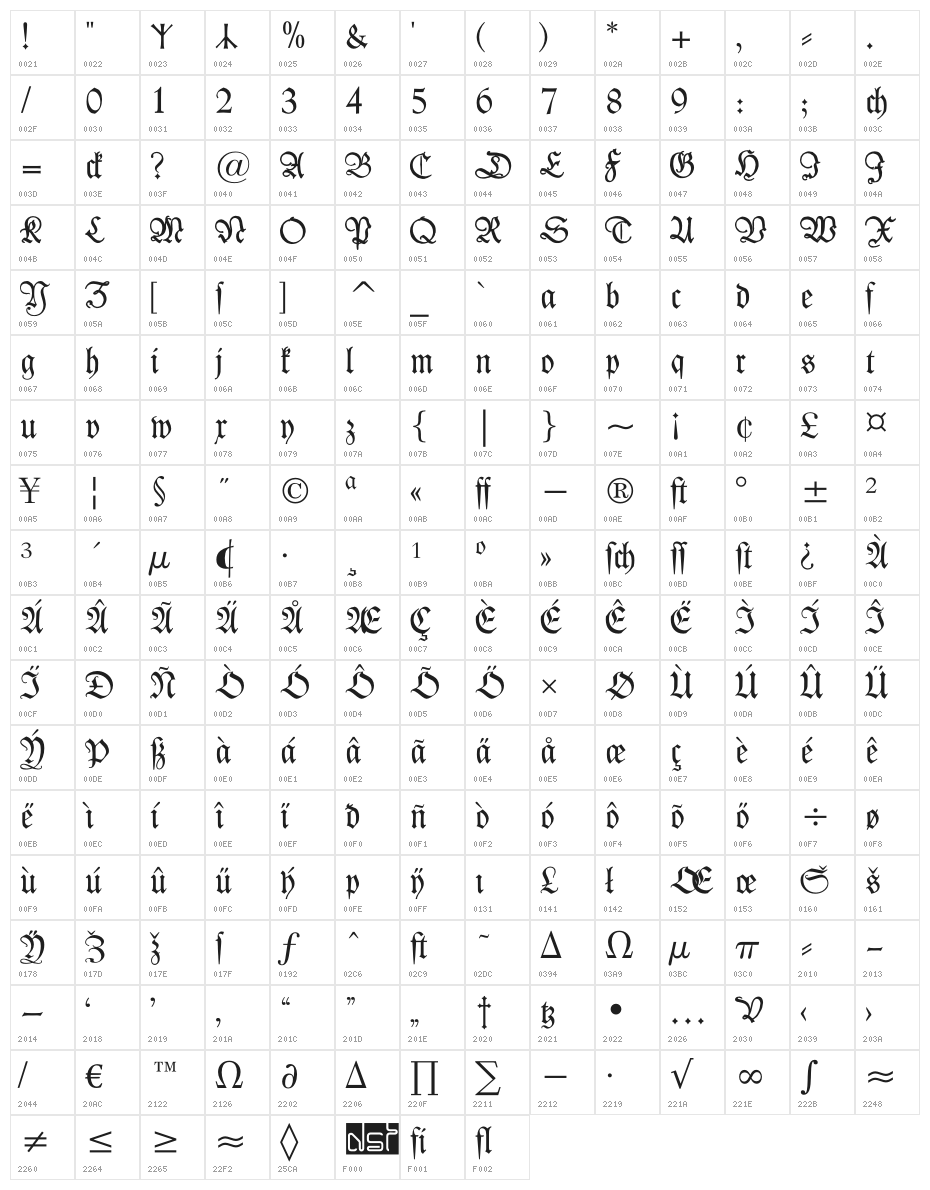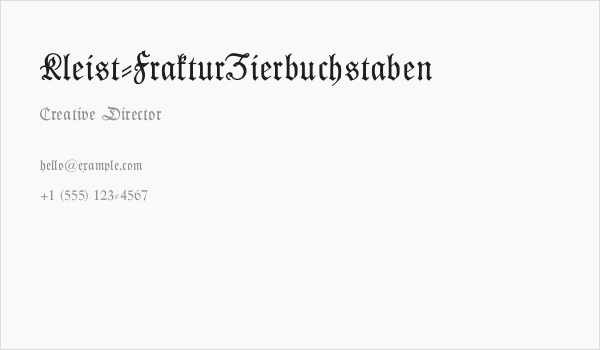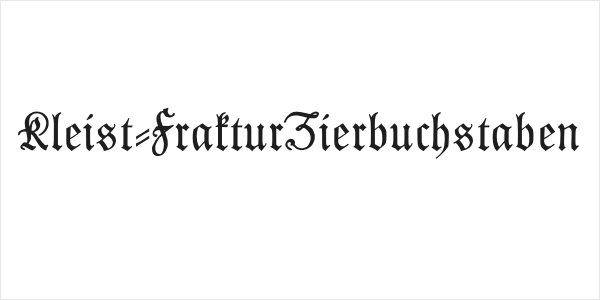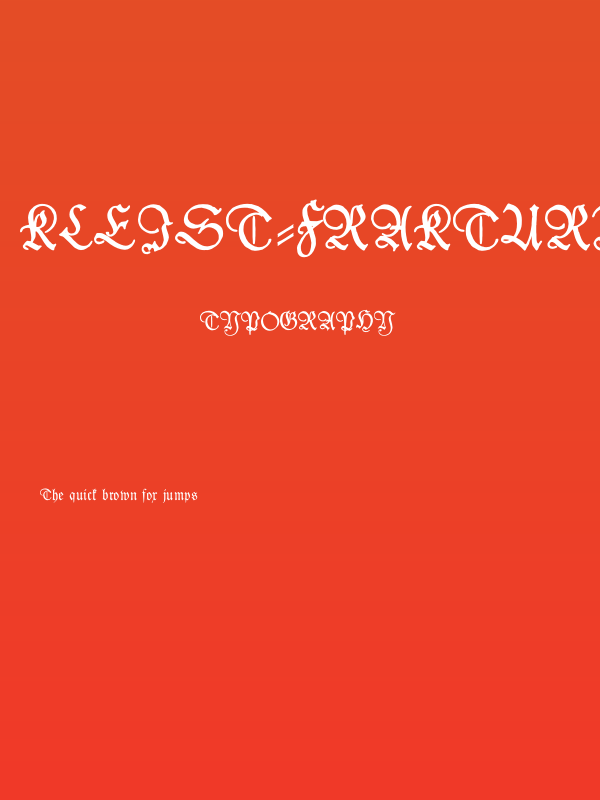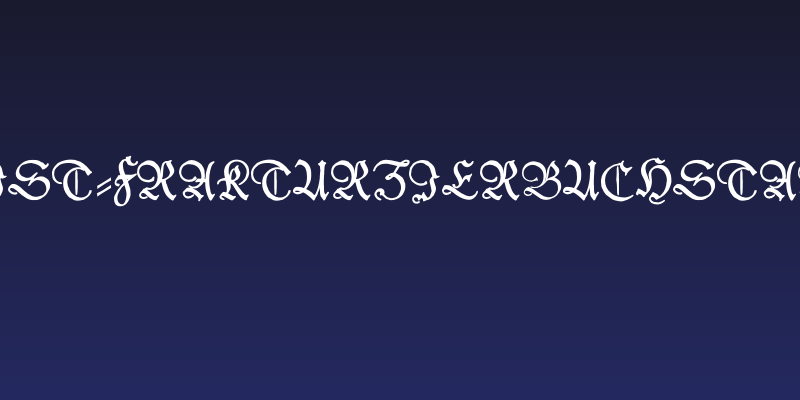
Kleist-FrakturZierbuchstaben Font
Kleist-FrakturZierbuchstaben Description
This font embodies the traditional elegance and intricate detailing of classic blackletter styles. Each character is meticulously crafted with ornate flourishes and sharp, angular strokes, reflecting a historical and gothic aesthetic. The uppercase letters are particularly elaborate, featuring decorative elements that enhance their visual impact. The lowercase letters maintain the same stylistic integrity, offering a cohesive look throughout. The numerals are bold and distinct, ensuring readability while maintaining the overall theme. Special characters are thoughtfully designed to complement the alphabet, making this font versatile for various applications.
| Proposed Projects | Ideal for historical documents, wedding invitations, book covers, and branding that requires a vintage or gothic touch. |